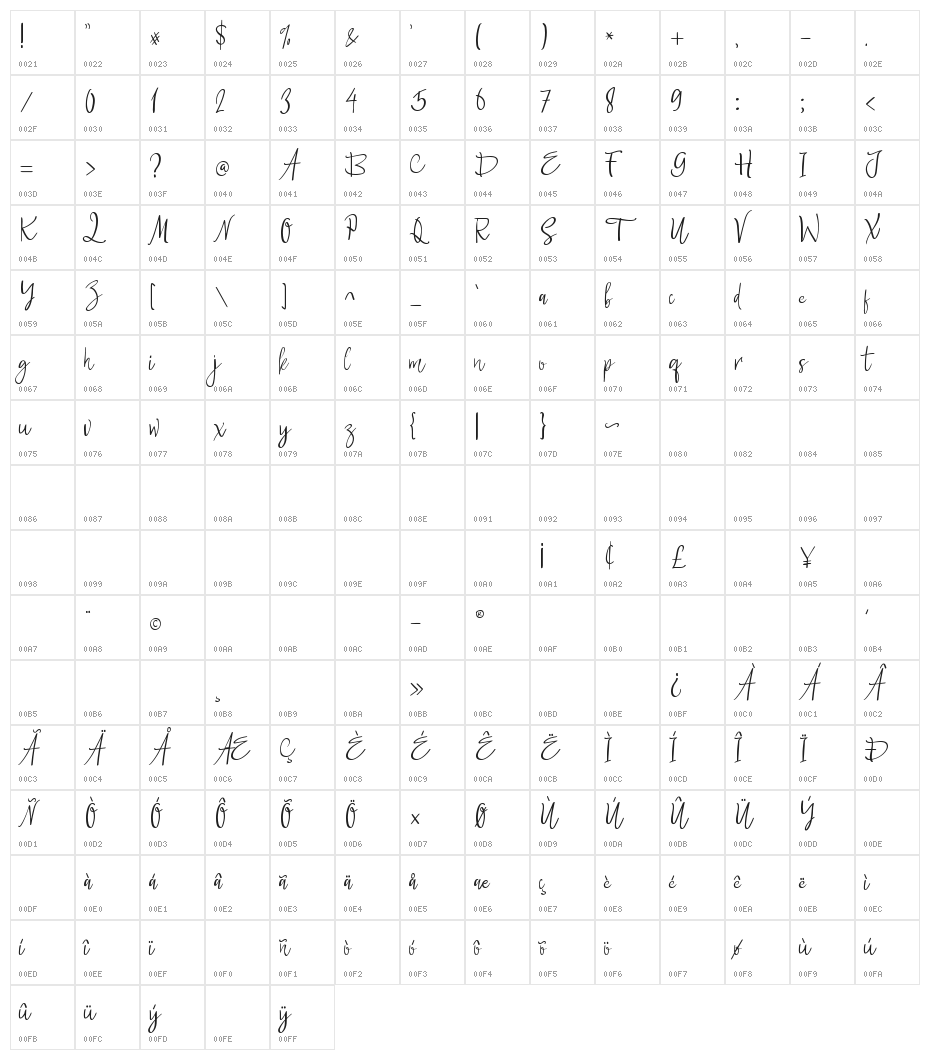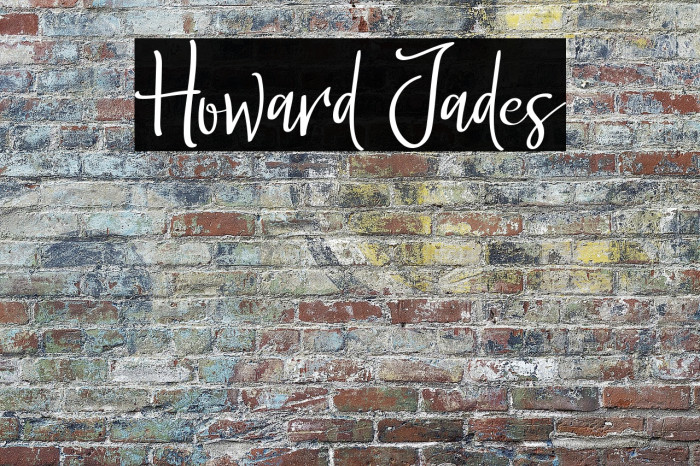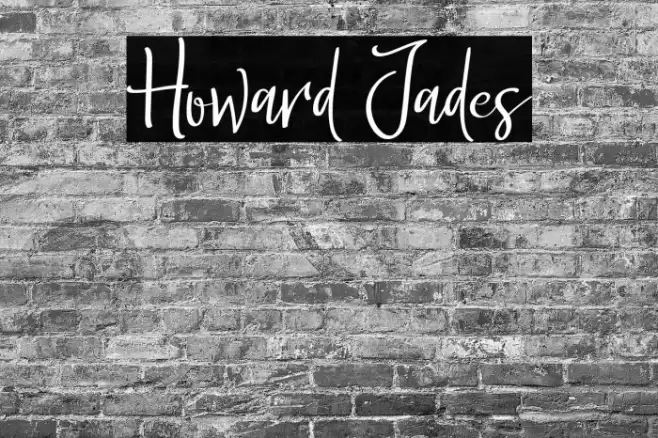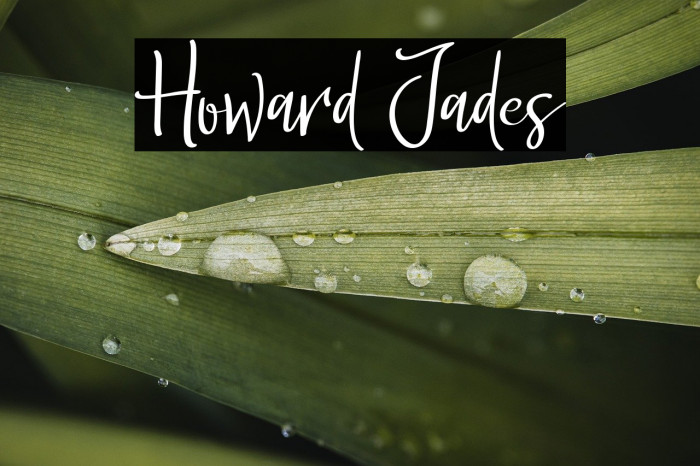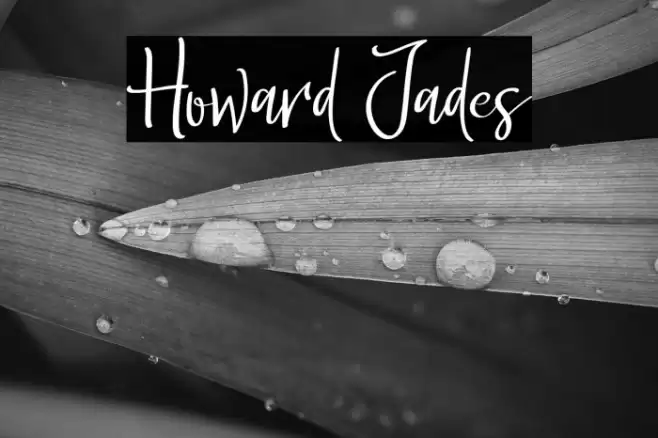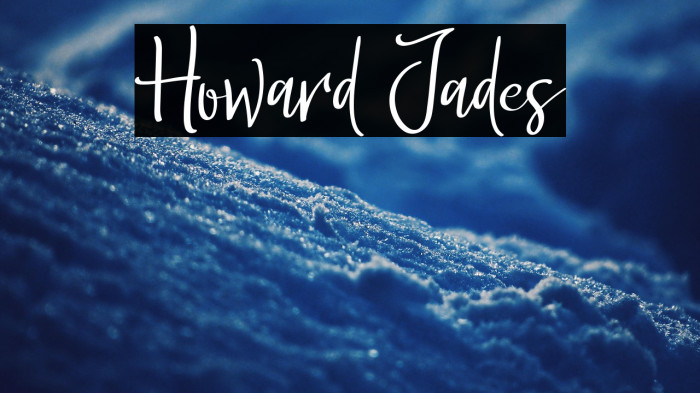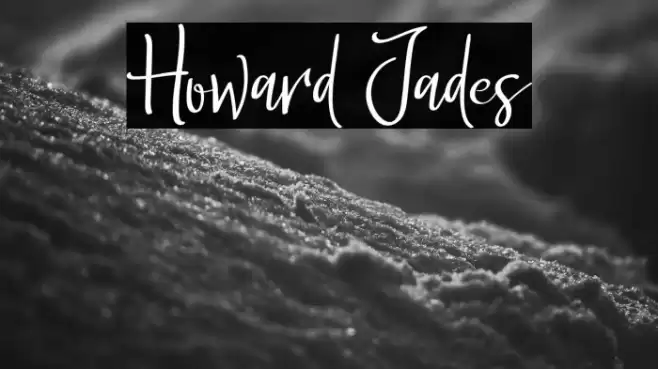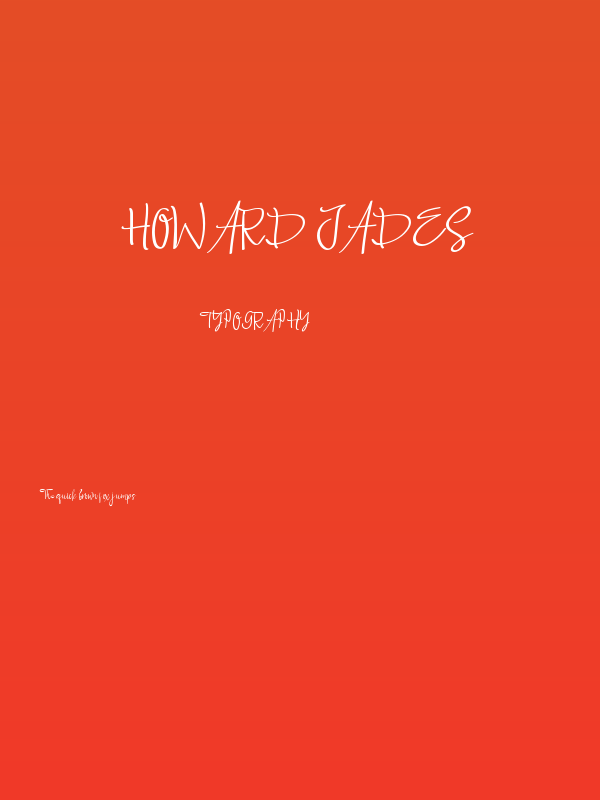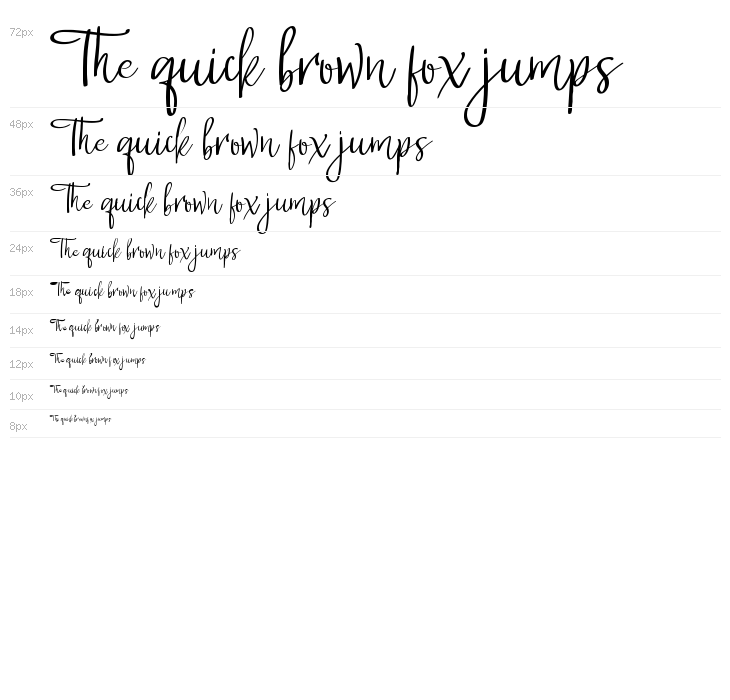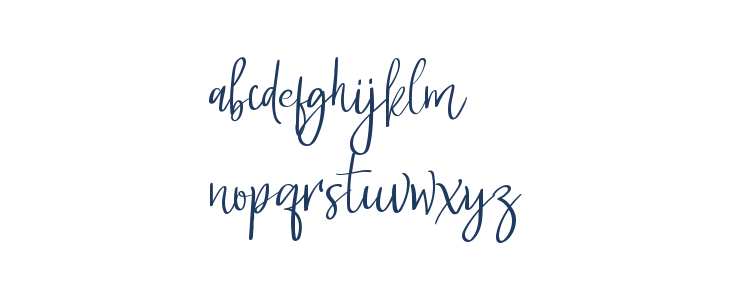
Howard Jades Font
Howard Jades Description
This font features a lively and expressive handwritten style, characterized by its fluid and dynamic strokes. The uppercase letters are bold and slightly slanted, giving a sense of movement and energy. The lowercase letters maintain a consistent flow, with some letters featuring loops and curls that add to the overall playful aesthetic. The numerals are clear and legible, matching the style of the alphabet with their own unique flair. Special characters are well-integrated, maintaining the font's cohesive look. This font is perfect for projects that require a personal touch, such as invitations, greeting cards, or branding materials that aim to convey creativity and warmth.